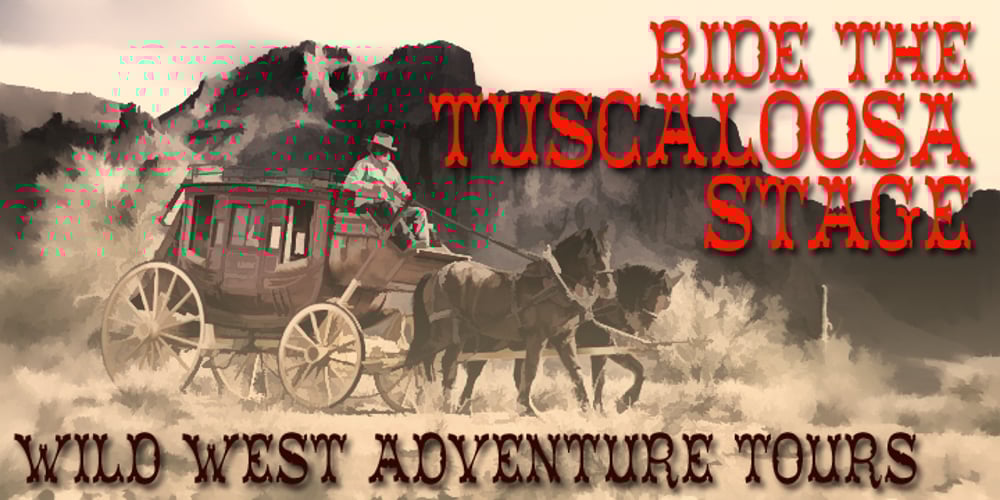
Tuscaloosa
Tuscaloosa font
Tuscaloosa Font Family was designed by Paul James Lloyd and published by Greater Albion Typefounders. Tuscaloosa contains 3 styles and family package options. Tuscaloosa is a classic American ‘Wild West’ Tuscan typeface-we thought it would make a suitable Independence Day tribute to our many American clients. It’s ideal for wherever that ‘Western’ feel is wanted. Posters, signage, the sides of stagecoaches etc… Three faces are offered, a pristine and sharp regular form, a somewhat distressed ‘Rustic’ face and the rather more distressed ‘Extremely Rustic’. So why not mosey on down the saloon with Tuscaloosa!